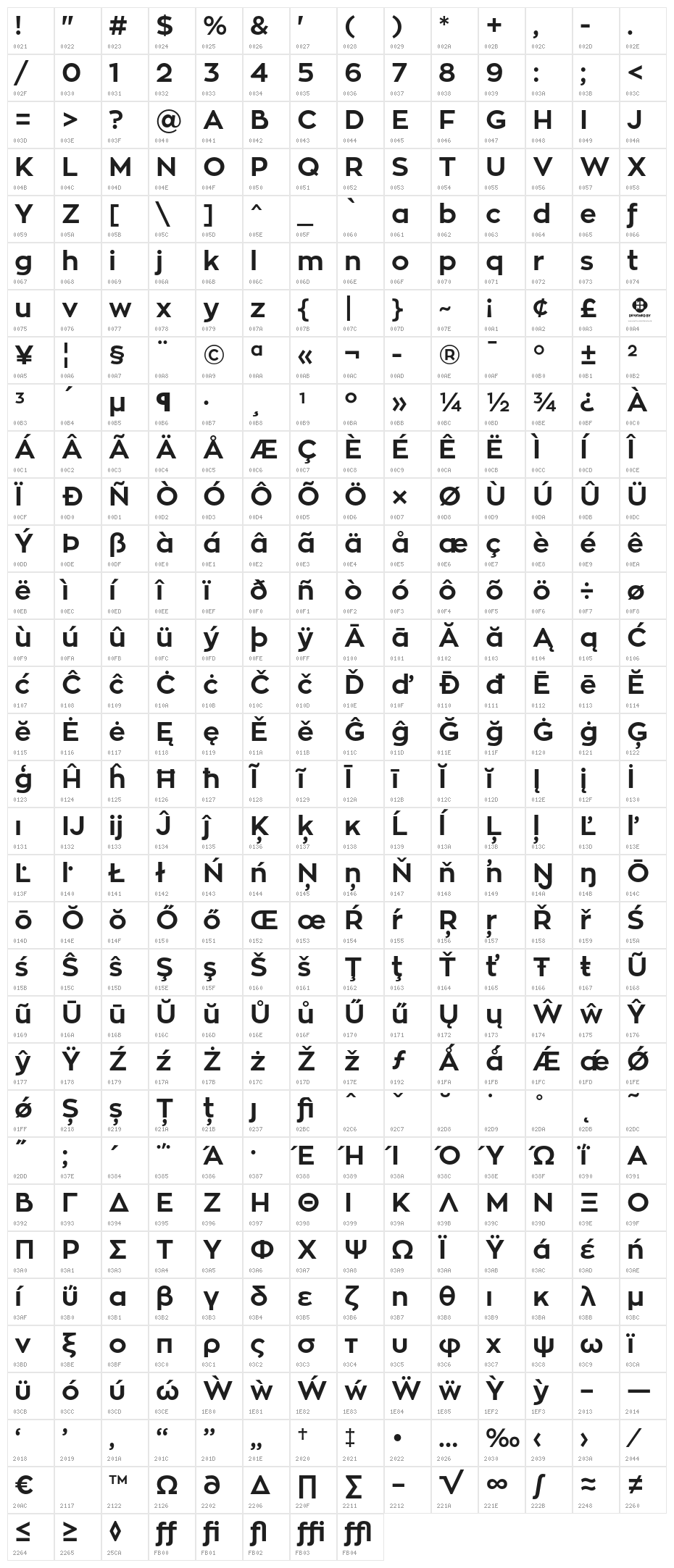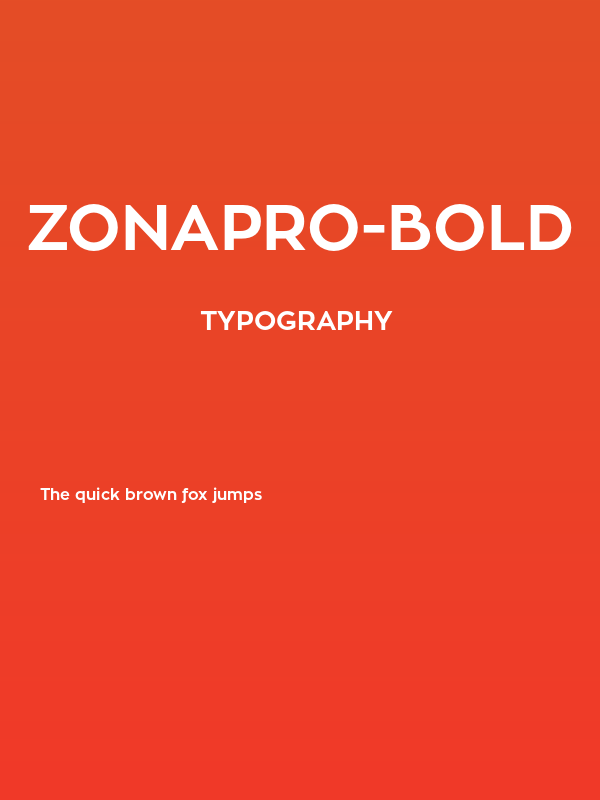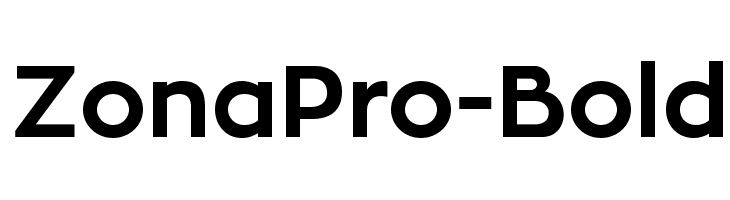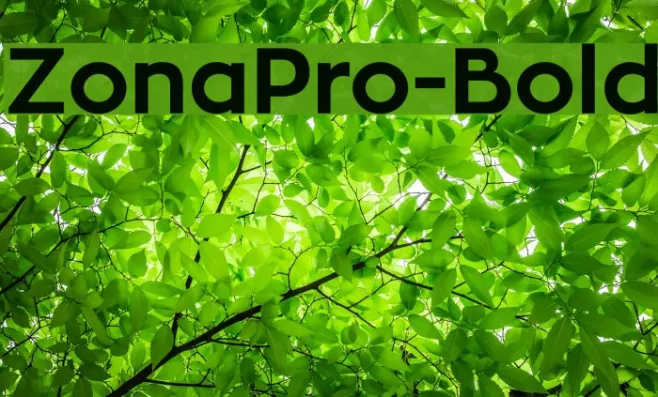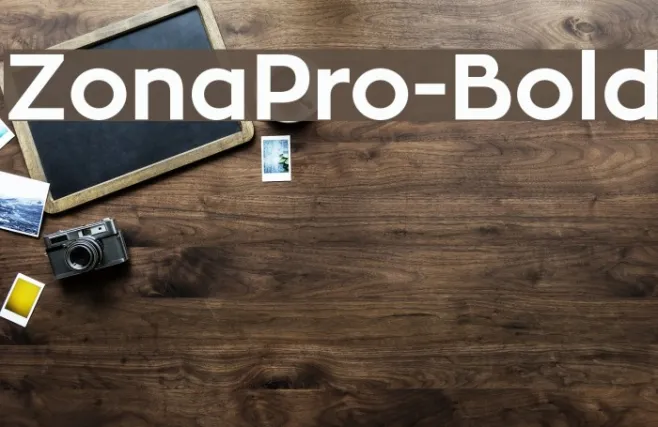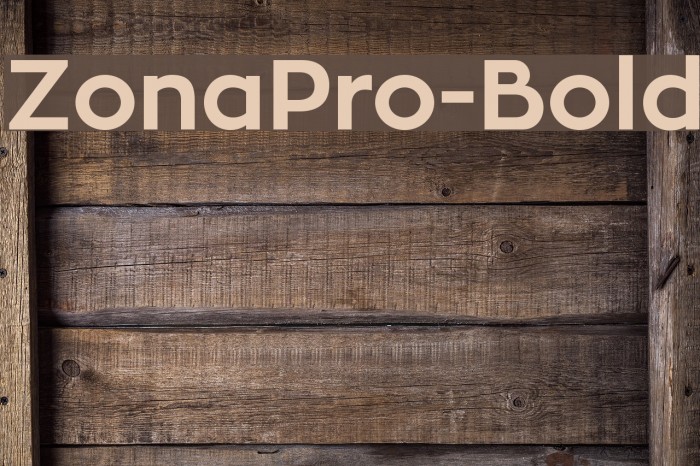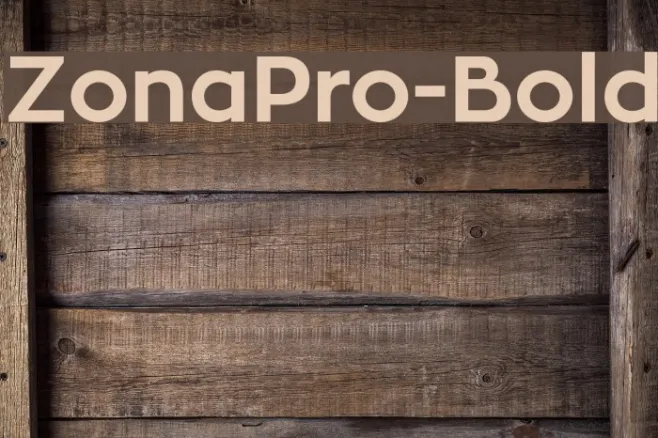
ZonaPro-Bold Font
ZonaPro-Bold Description
This font exhibits a clean, modern sans-serif style with bold, uniform strokes that convey a sense of strength and clarity. The characters are well-proportioned, featuring a consistent weight throughout, which enhances readability. The uppercase letters are slightly taller than the lowercase, providing a balanced and structured appearance. The numerals are clear and distinct, making them suitable for various applications. Special characters are designed with the same attention to detail, ensuring they integrate seamlessly with the rest of the typeface. Overall, this font is versatile, suitable for both digital and print media, and can be used effectively in a variety of design contexts.